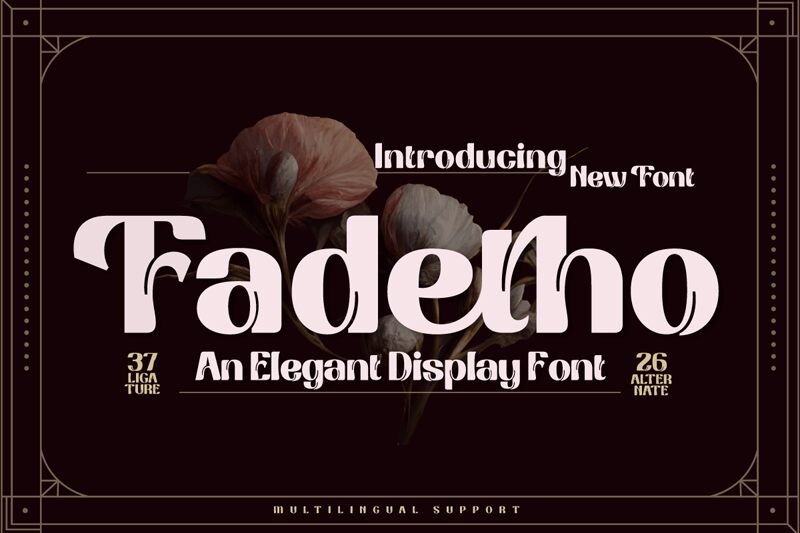
Fadetho font by Twinletter is a bold retro display font with plenty of style to offer. Designed for dramatic effect, this expressive typeface is highly ornamental and impactful. Its look is unique, stylish, stylishly vintage-inspired and rich in details that highlight every word it writes.
Use Fadetho freely in all your signage projects from inside shops to outside buildings. It works on packaging designs such as labels and stickers since it stands out as part of the branding of boxes, bottles, and jars. Try it on book covers, music album covers, movie posters, ads (print or digital), banners or flyers!